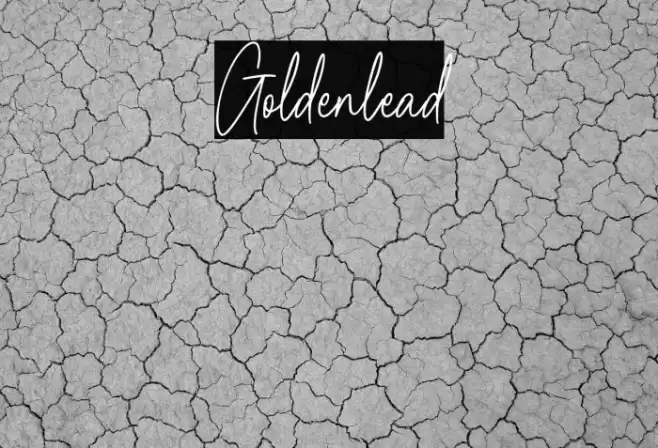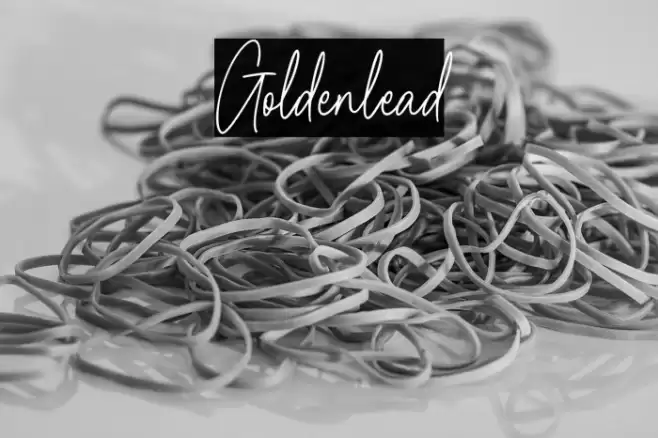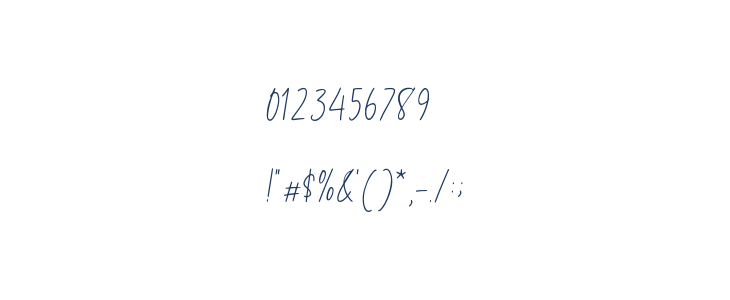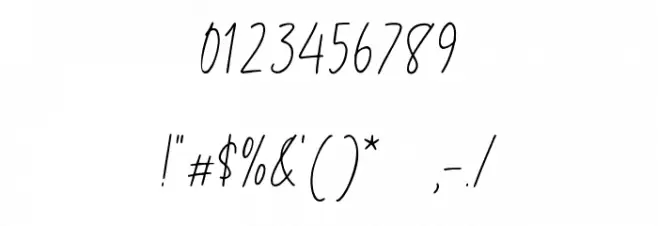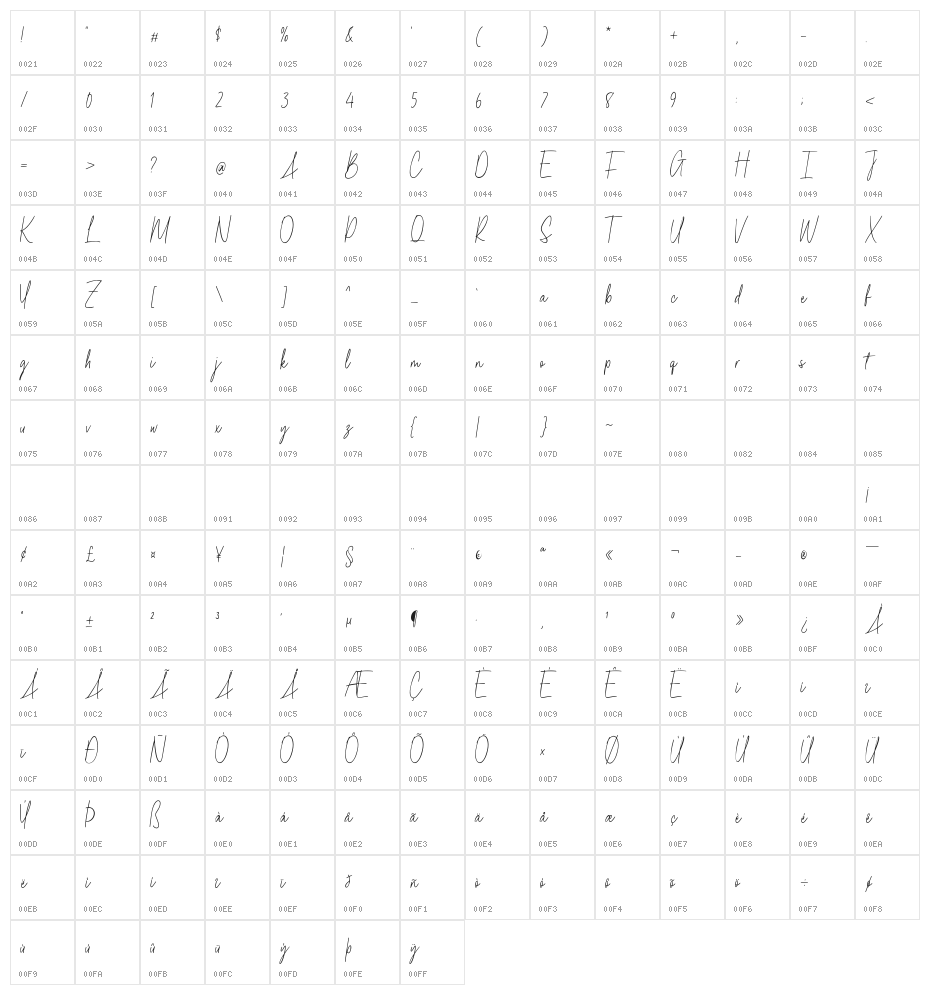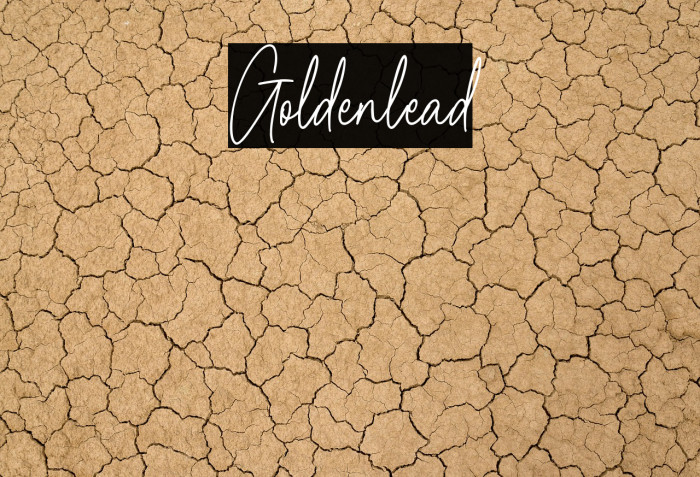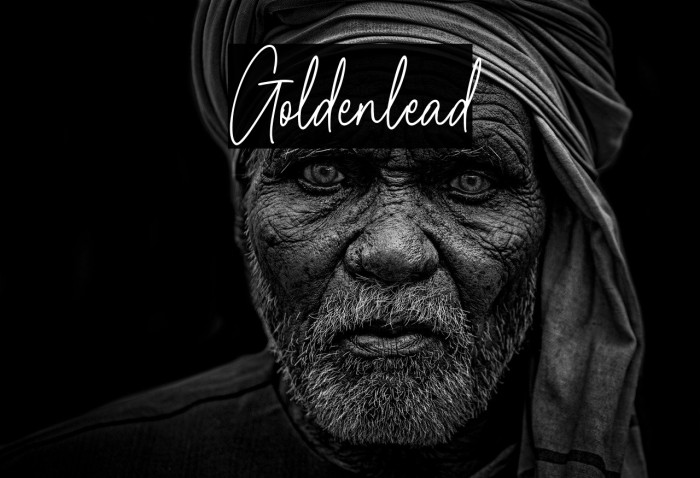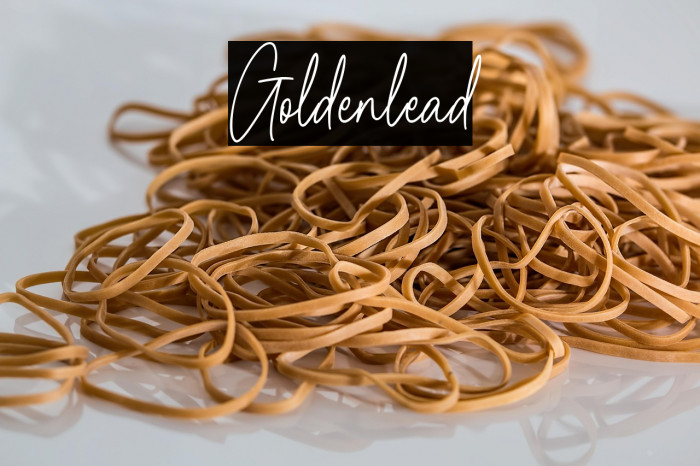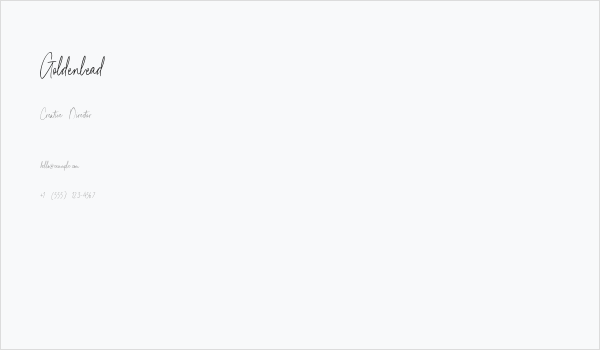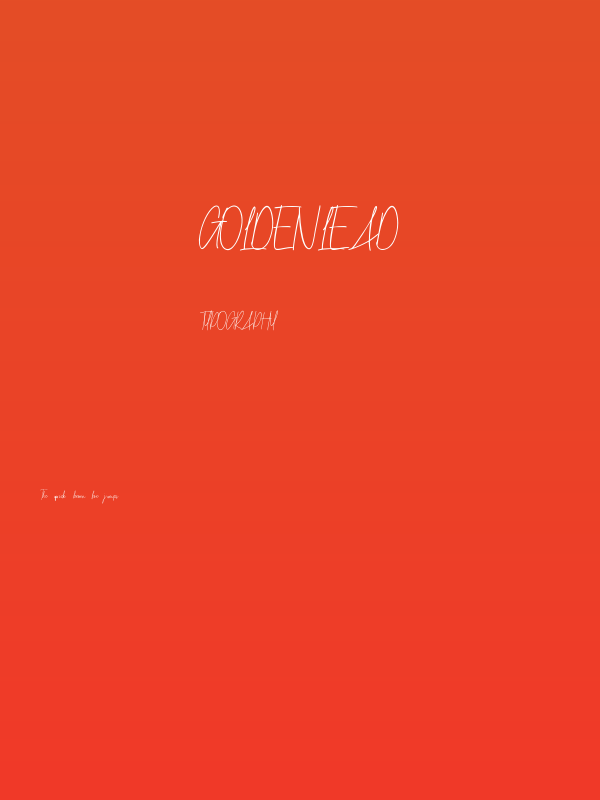
Goldenlead Font
Goldenlead Description
This font features a unique handwritten style with a modern twist, characterized by its elongated and slightly slanted letterforms. The uppercase letters are tall and narrow, giving a sense of elegance and sophistication, while the lowercase letters maintain a fluid and cursive appearance. The numerals are consistent with the overall style, offering a cohesive look. Special characters are included, maintaining the same handwritten aesthetic. The font's delicate strokes and artistic flair make it suitable for creative projects that require a personal touch.
A modern, handwritten font with elongated, elegant letterforms from Regular fonts.
- Proposed Projects: Ideal for wedding invitations, personal branding, greeting cards, and artistic projects.
- Use Case: Logos, Invitations, Artistic projects